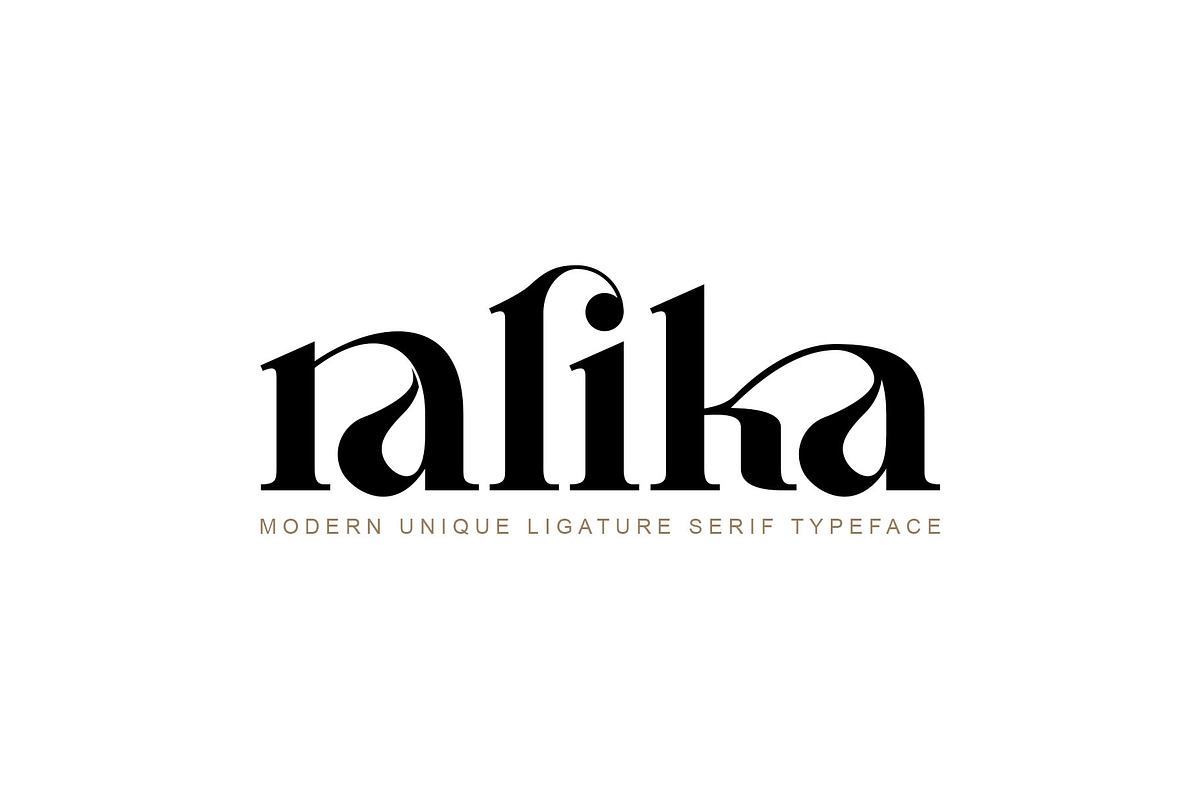
Ralika Ligature Serif Typeface Free Download
Ralika Ligature Serif Typeface Free Download is a refined and stylish serif font that combines classic elegance with modern typographic flair. Featuring beautifully crafted ligatures and graceful curves, Ralika is perfect for luxury branding, editorial layouts, wedding stationery, fashion logos, and upscale packaging.
Its unique ligature combinations give every word a customized, high-end feel, allowing your typography to stand out with sophistication and originality. Whether you're creating a signature look for a brand or adding a touch of charm to your content, Ralika adapts beautifully to both print and digital designs.